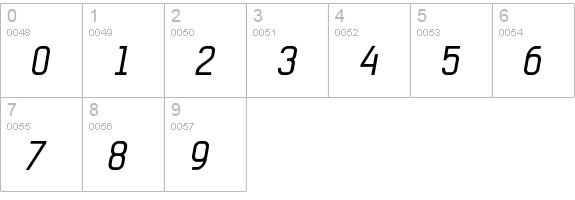
BetaSans-NormalOblique Font Details
BetaSans-NormalOblique is a modern and versatile font that combines elegance with readability. Its sleek oblique style adds a touch of sophistication to any design project. This font is perfect for use in various applications such as branding, editorial design, and web content. What makes BetaSans-NormalOblique even more appealing is that it is completely free to download at FontsMarket.com. This means you can access this high-quality font without any cost, making it a valuable addition to your font library. With its clean lines and dynamic presence, BetaSans-NormalOblique is sure to enhance the visual impact of your projects. Download it today and elevate your design work to the next level.